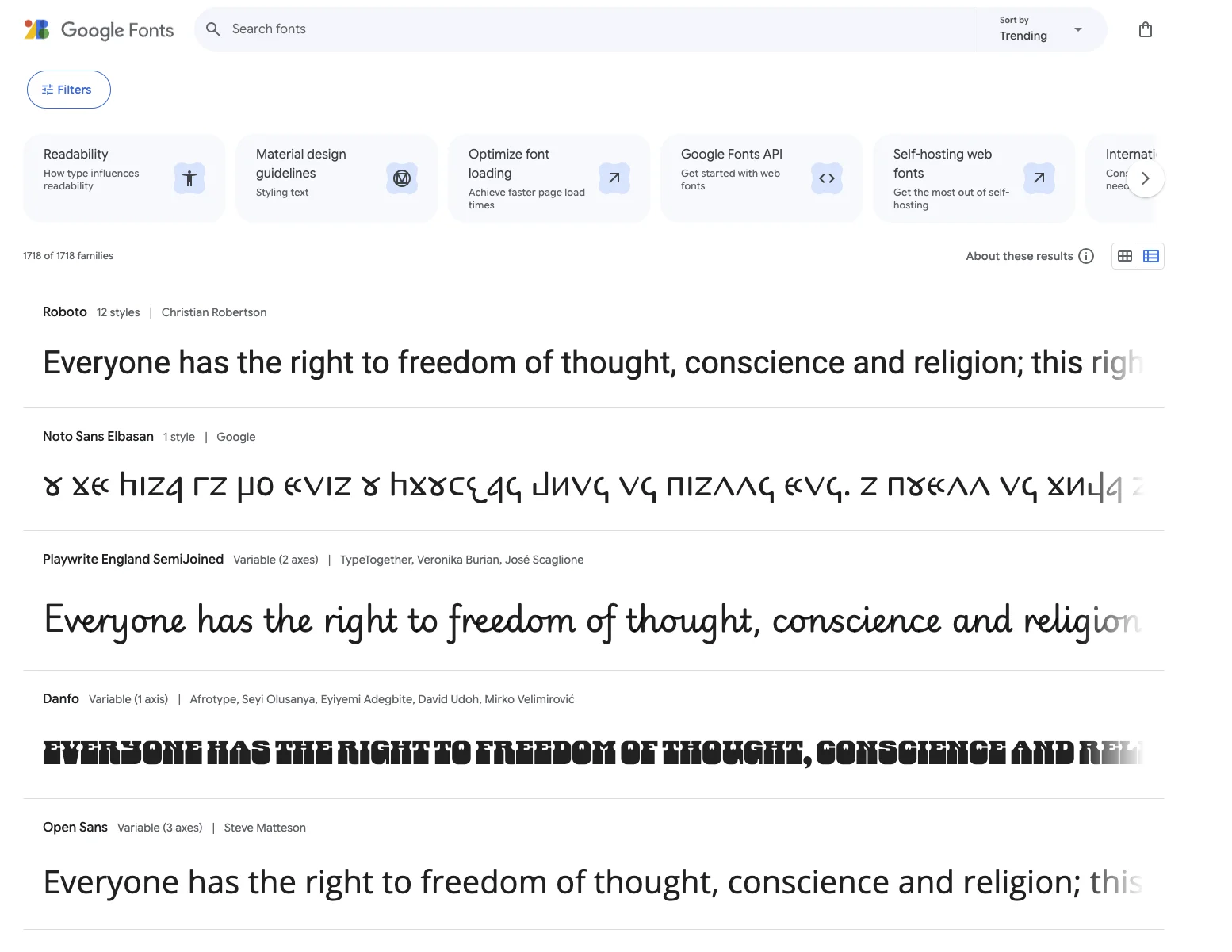
What is Google Fonts? How Many Fonts Are in Google Fonts?
In today’s digital age, typography is a key part of web design and branding. One powerful tool that has revolutionized web fonts is Google Fonts. This free library has opened the doors to high-quality fonts for designers, developers, and anyone looking to elevate the visual appeal of their projects. But what exactly is Google Fonts, and how many fonts does it offer? Let’s dive in!
What is Google Fonts?
Google Fonts is a free and open-source library of fonts that Google launched in 2010. Its mission? To make typography accessible to everyone, regardless of skill level or budget. From casual bloggers to professional web designers, anyone can browse, preview, and use fonts for their websites or projects.
Google Fonts eliminates the hassle of licensing fees and restrictions often associated with font usage. The fonts are web-optimized, meaning they are designed to load quickly, which is essential for providing a smooth user experience. Plus, Google Fonts supports various languages, making it versatile for projects targeting global audiences.
With Google Fonts, customization is easy. You can adjust font weight, style, and size, offering flexibility for all your design needs.
How Many Fonts Are in Google Fonts?
The collection of fonts in Google Fonts has grown considerably since its launch. As of now, Google Fonts hosts over 1,400 font families, covering a wide range of styles such as serif, sans-serif, script, display, and monospace. This extensive variety allows designers to find fonts that suit virtually any theme or purpose, from modern and minimalistic to traditional and decorative.
What’s even better is that Google is continuously adding new fonts, which means the collection keeps expanding. By frequently updating its library, Google ensures designers have access to the latest trends in typography.
Why Google Fonts is a Game-Changer
Here are some reasons why Google Fonts has become an essential tool for creatives worldwide:
Free and Open-Source: No need to worry about licensing fees or copyright issues. Google Fonts offers quality fonts with open licensing, allowing for unrestricted use.
Easy Integration: Integrating fonts into websites or applications is straightforward, making it a popular choice for developers.
Optimized for Performance: Google Fonts are optimized for the web, meaning they load faster than many other font options. Faster load times lead to a better user experience and can even boost your site’s SEO.
Cross-Platform Consistency: Google Fonts ensures your typography looks great across different devices and platforms, which is essential for brand consistency.
Global Language Support: Google Fonts supports a variety of languages and scripts, which is crucial for designers working with international audiences.
Final Thoughts
Google Fonts has transformed the way we approach typography, making quality fonts accessible and easy to use. With over 1,400 font families and counting, the platform offers endless possibilities for creating stunning, visually cohesive designs. Whether you’re a beginner or a seasoned designer, Google Fonts can enhance your work, simplify your workflow, and give your project a professional edge.